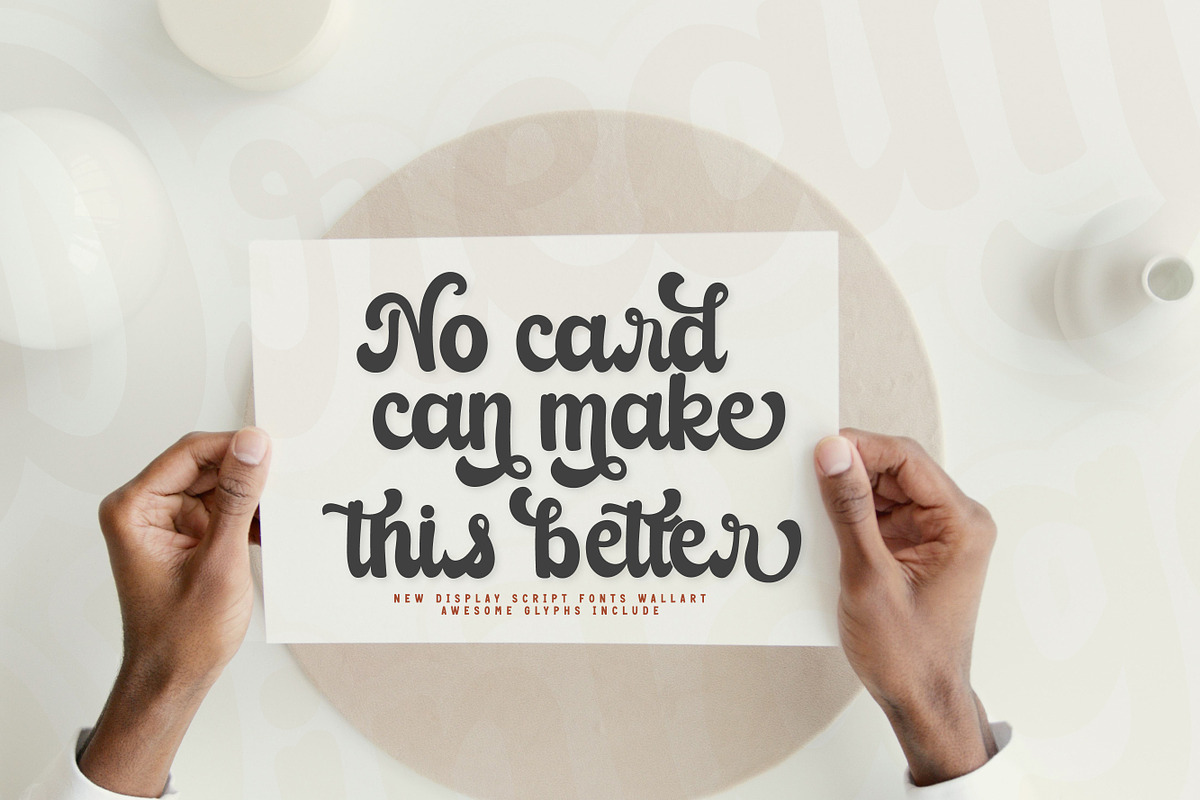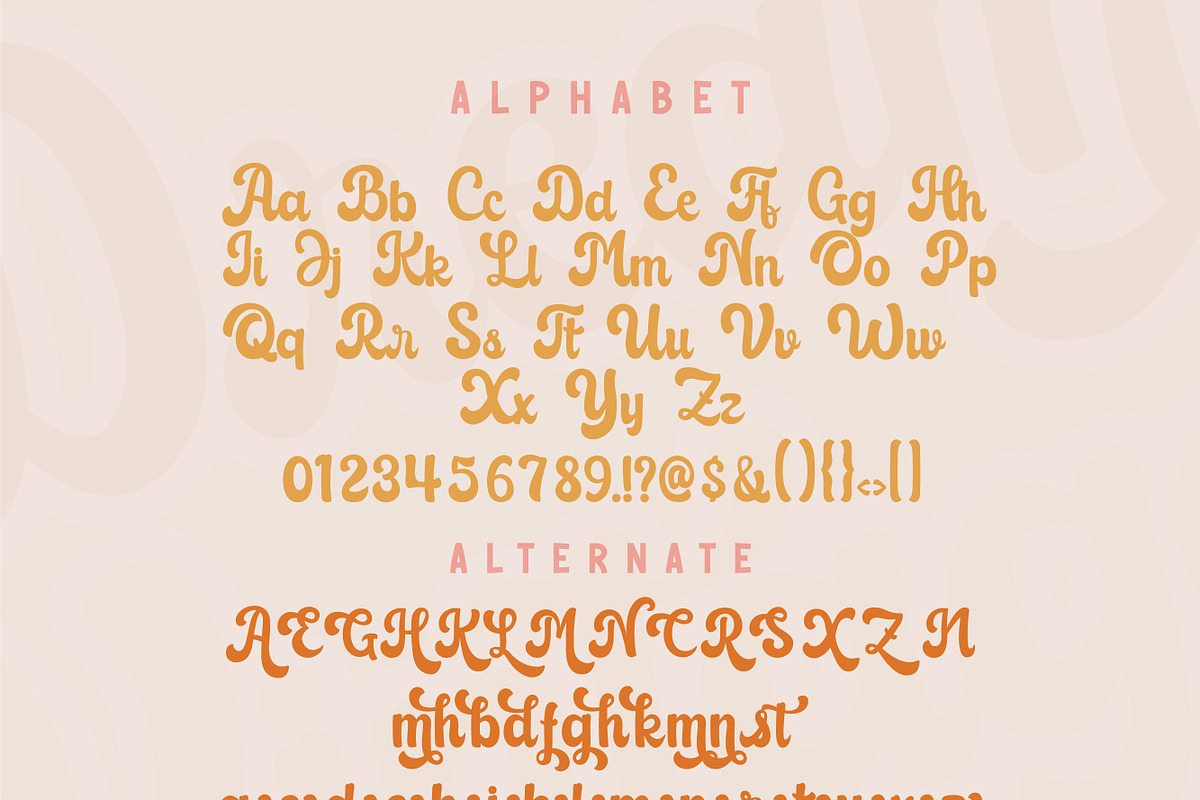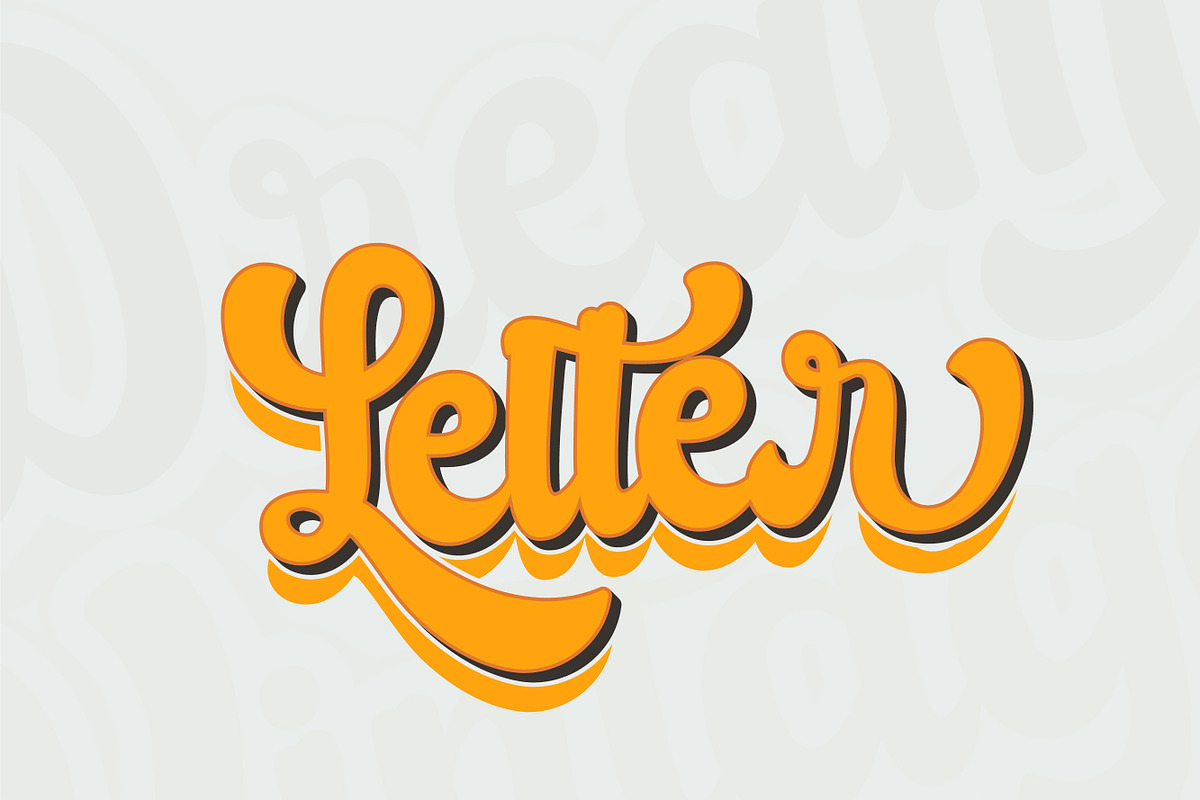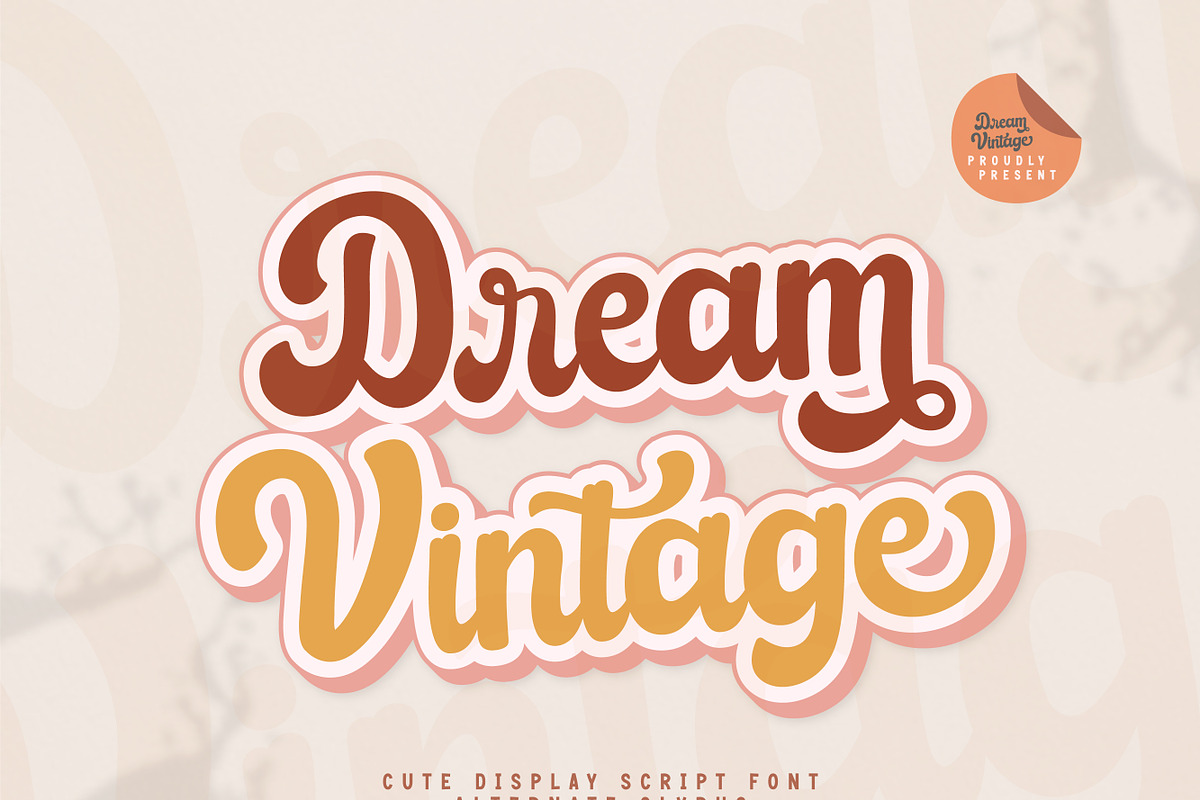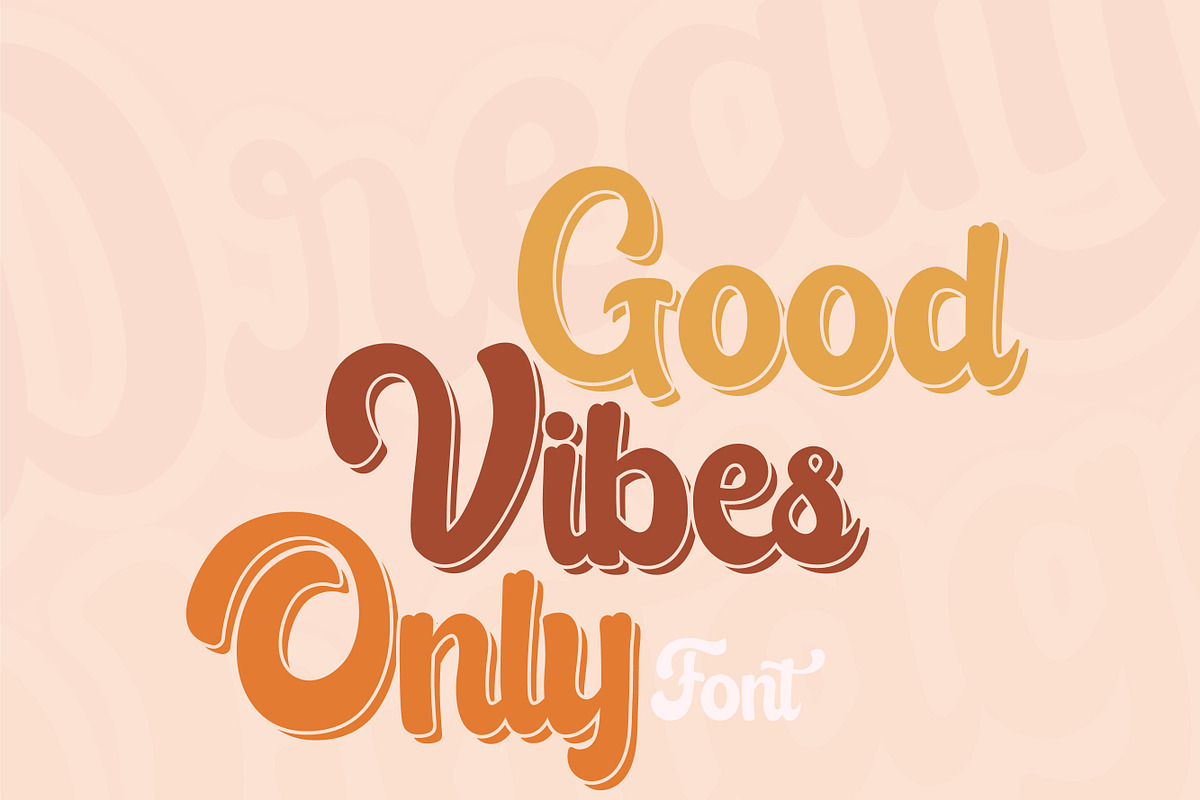
Dream Vintage
Dream Vintage is a sweet and fun display font. This font is PUA encoded which means you can access all of the glyphs and alternates with ease! it to create gorgeous wedding invitations, beautiful stationary art, eye-catching social media posts, logos, branding and much more!